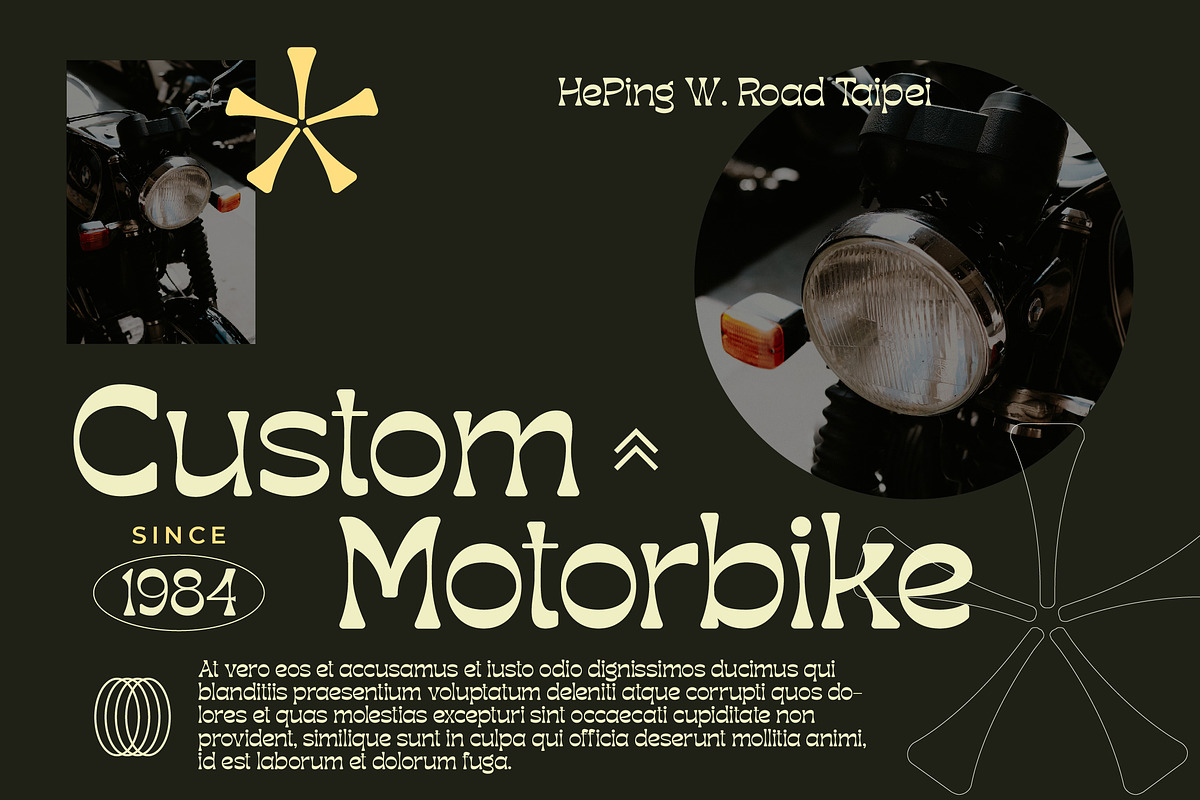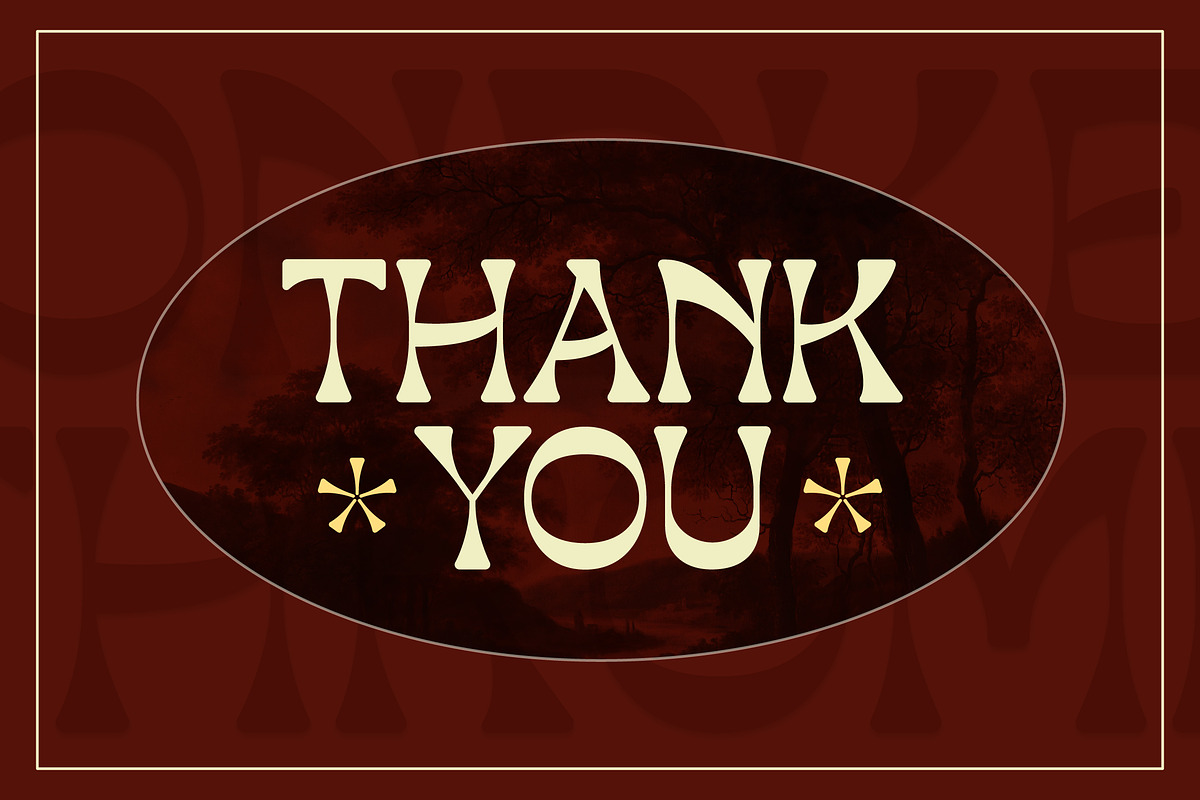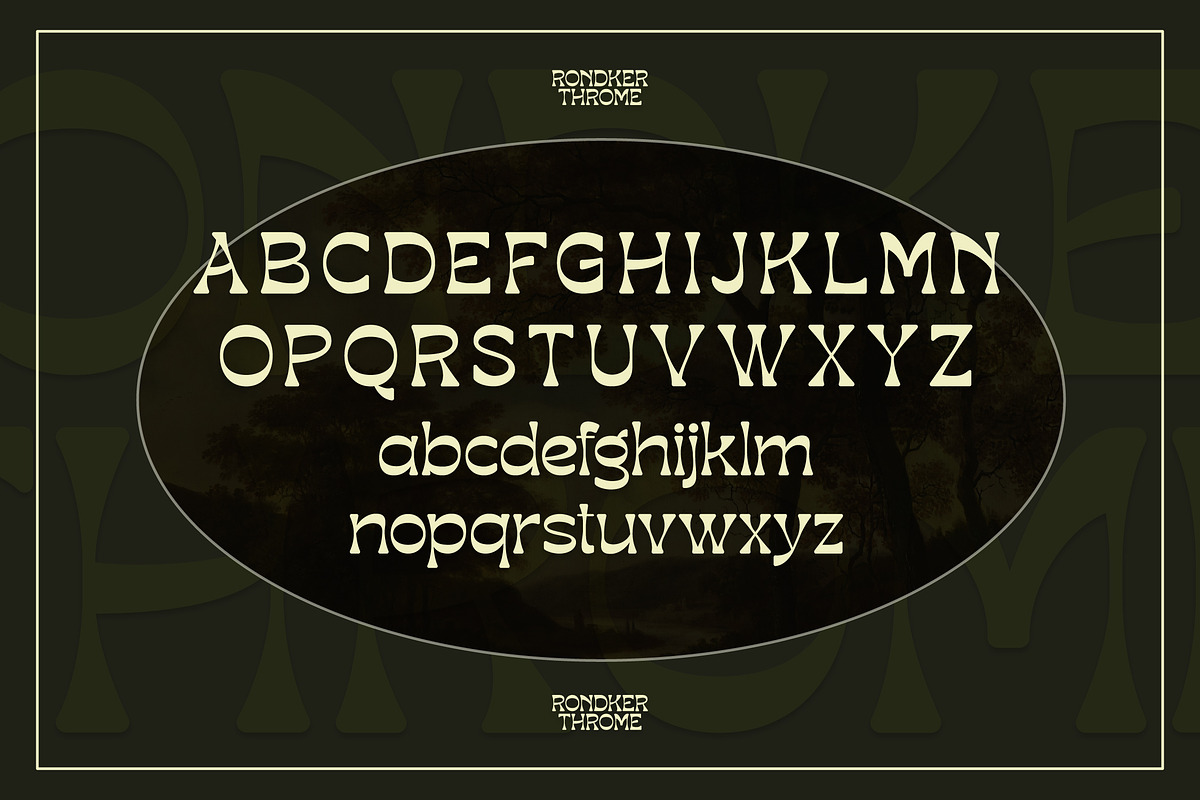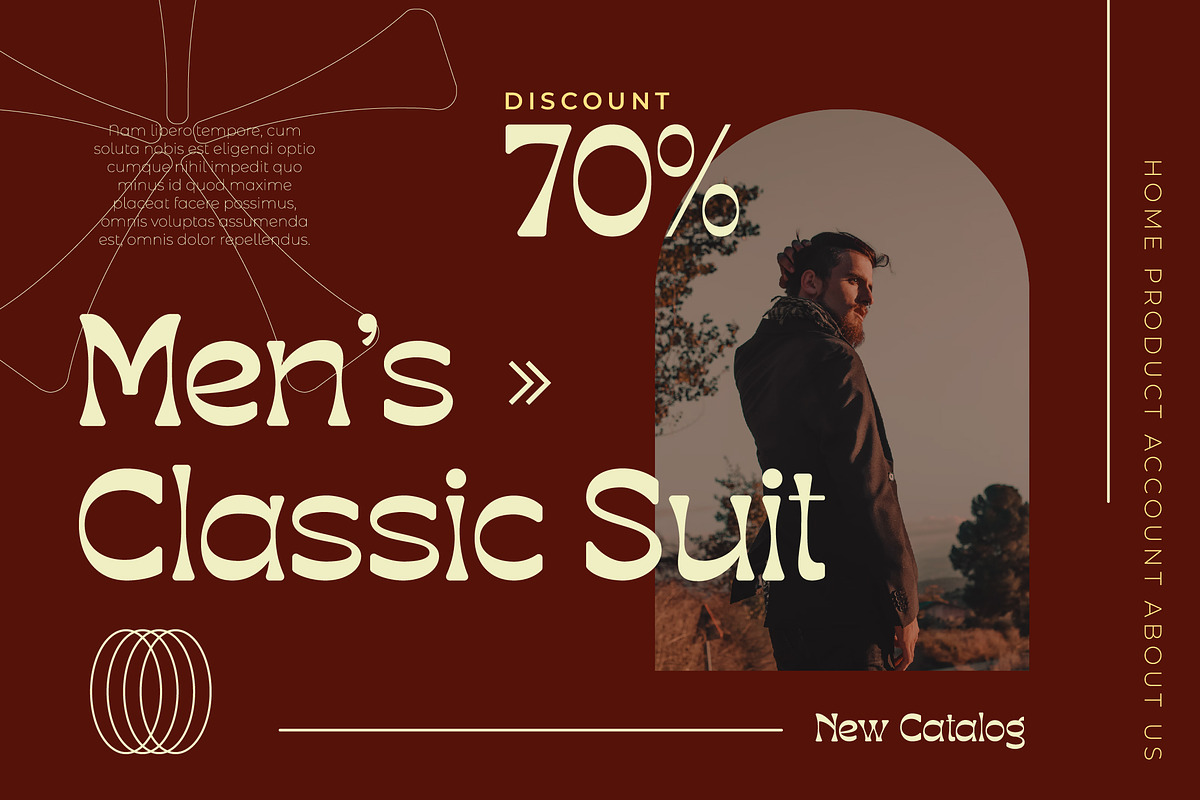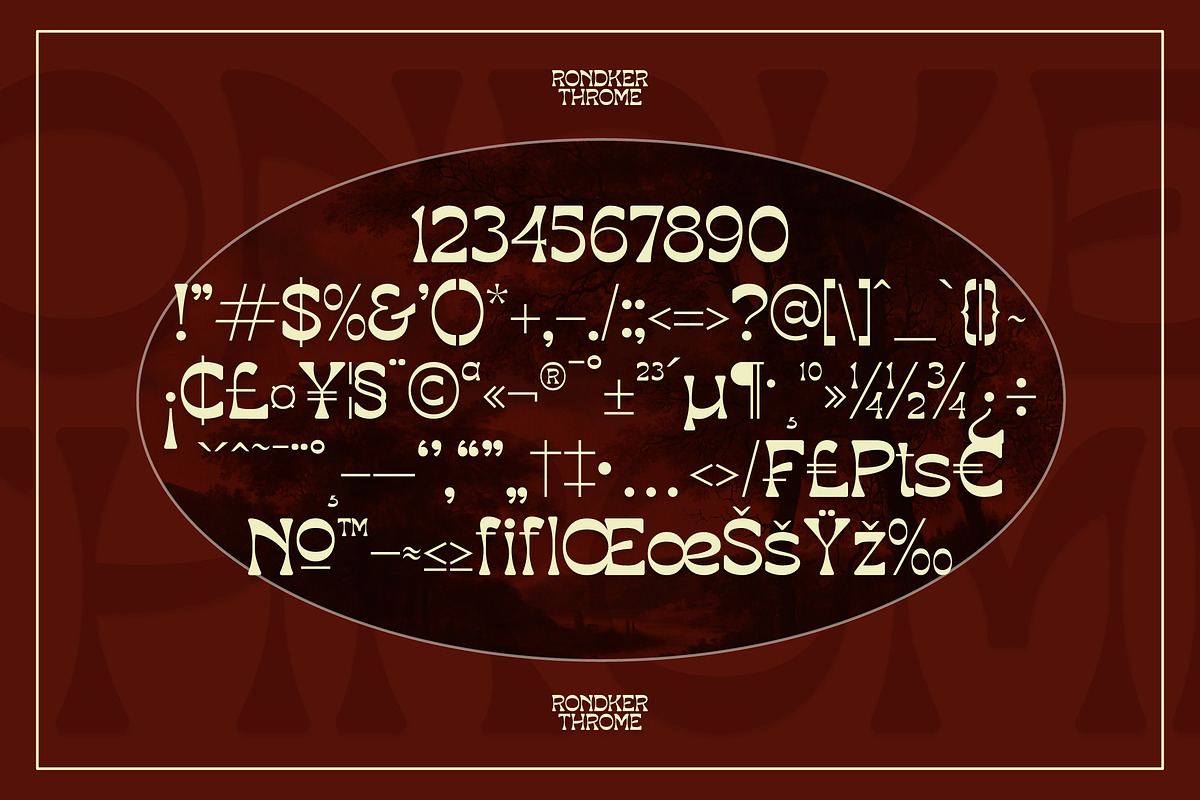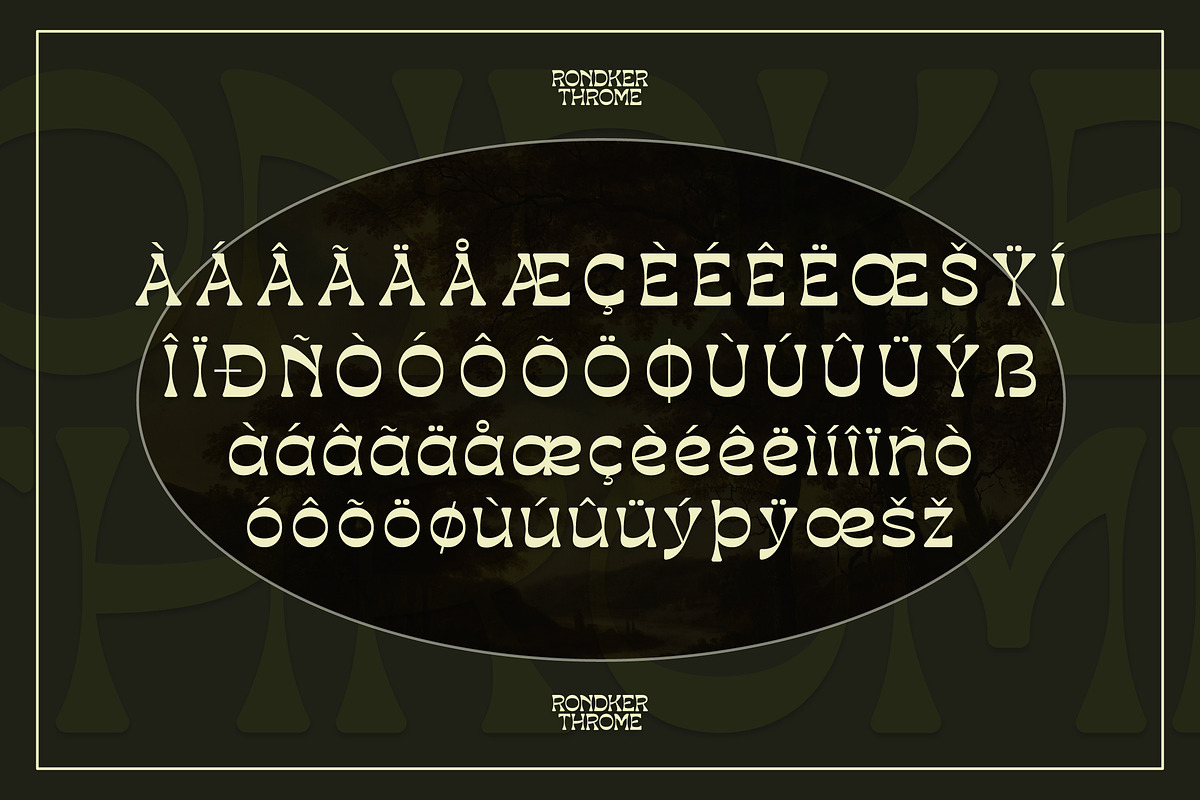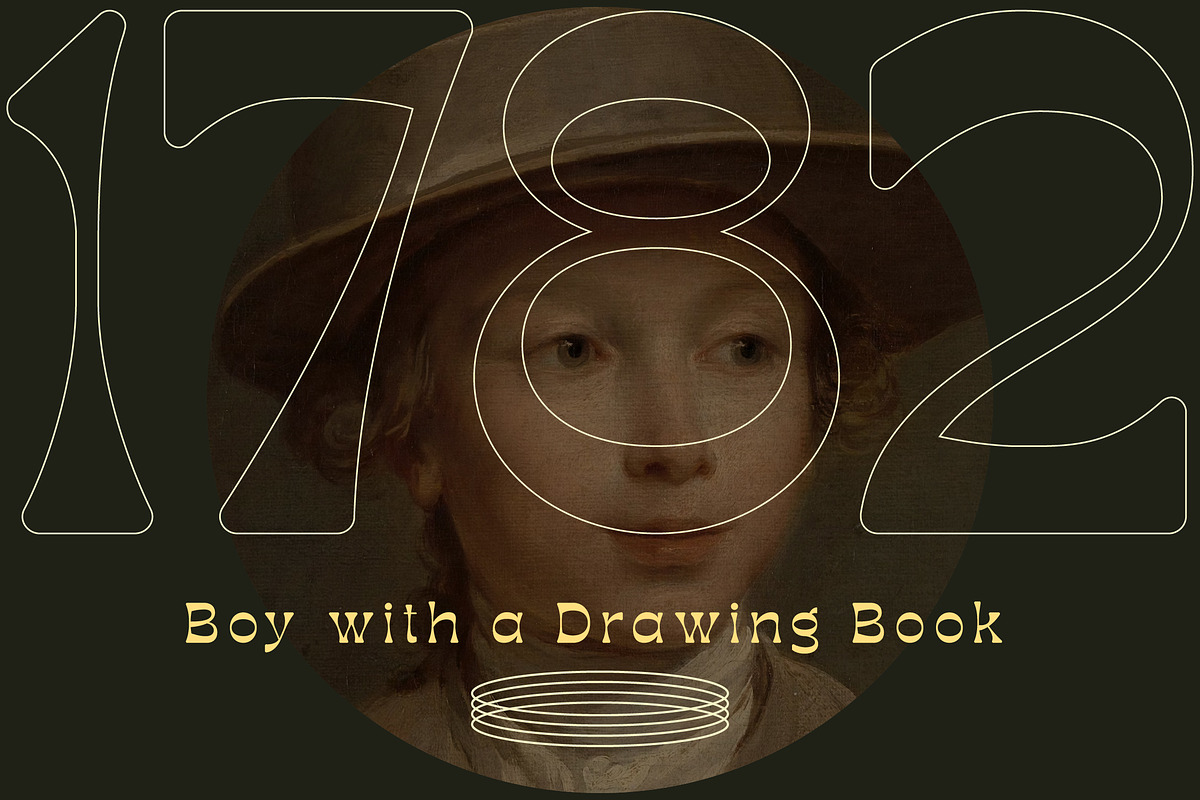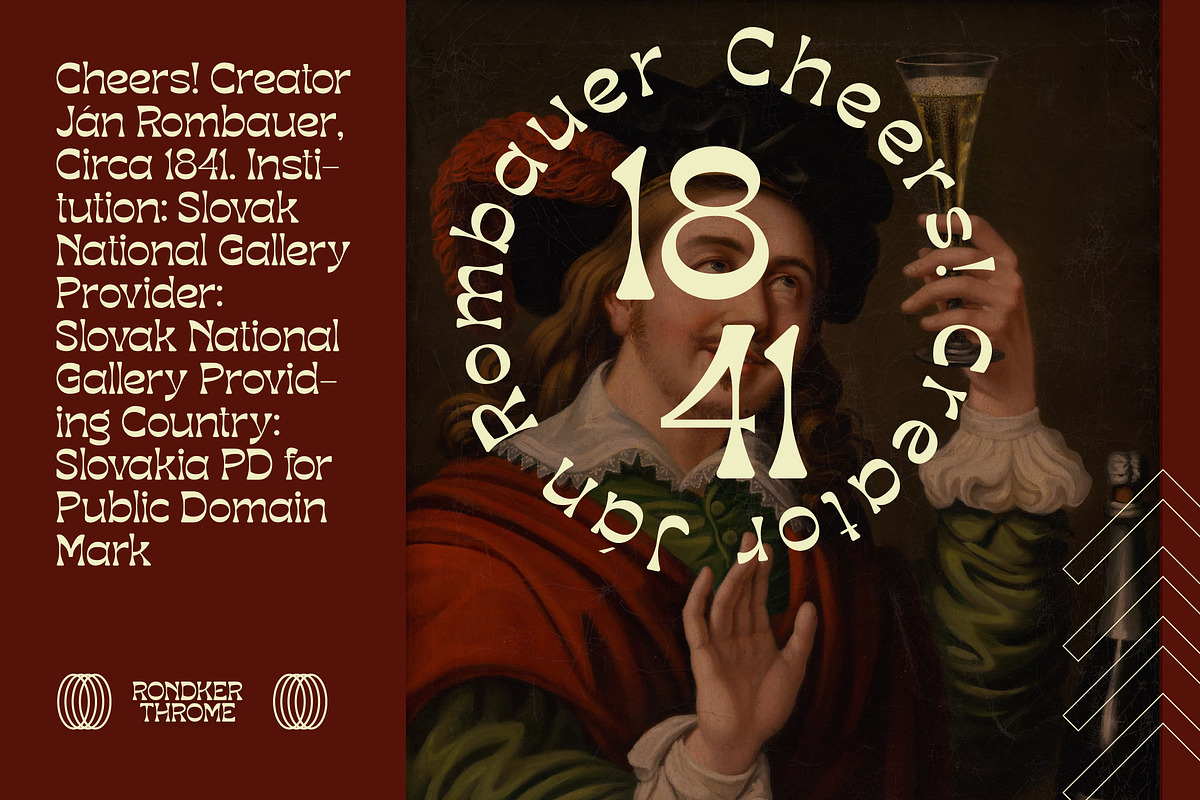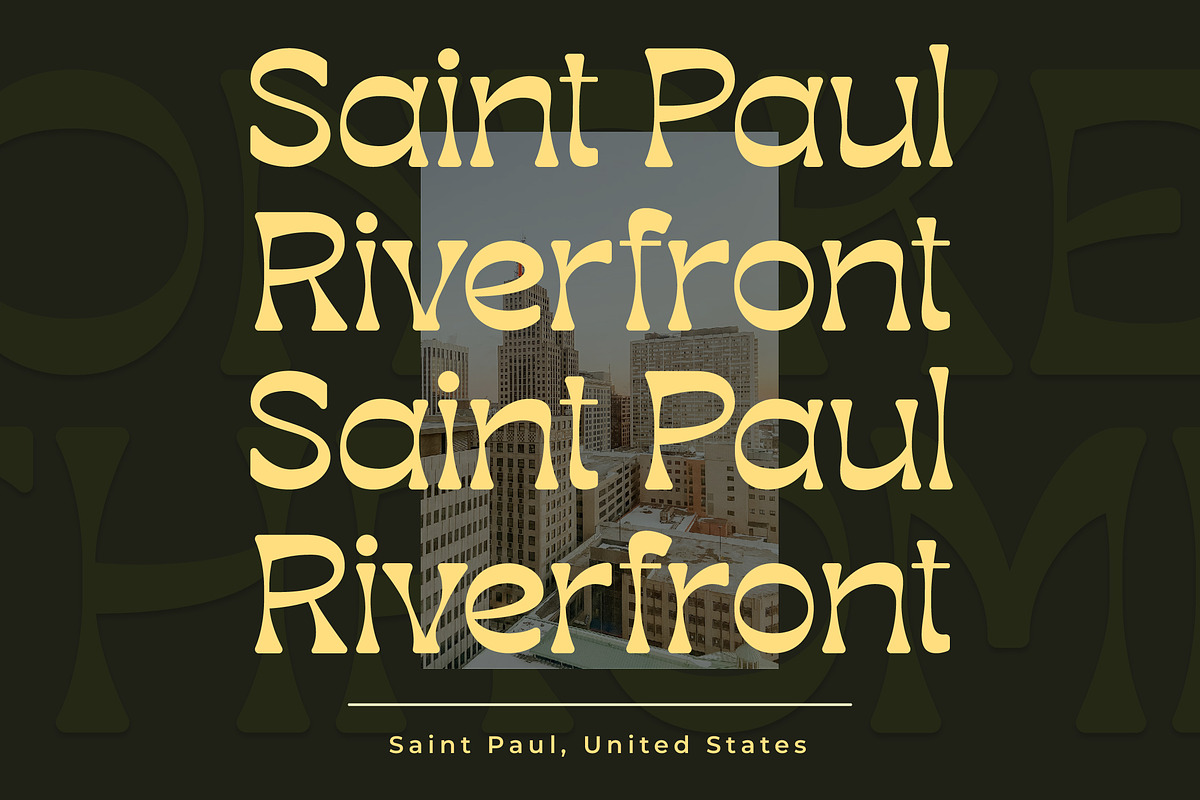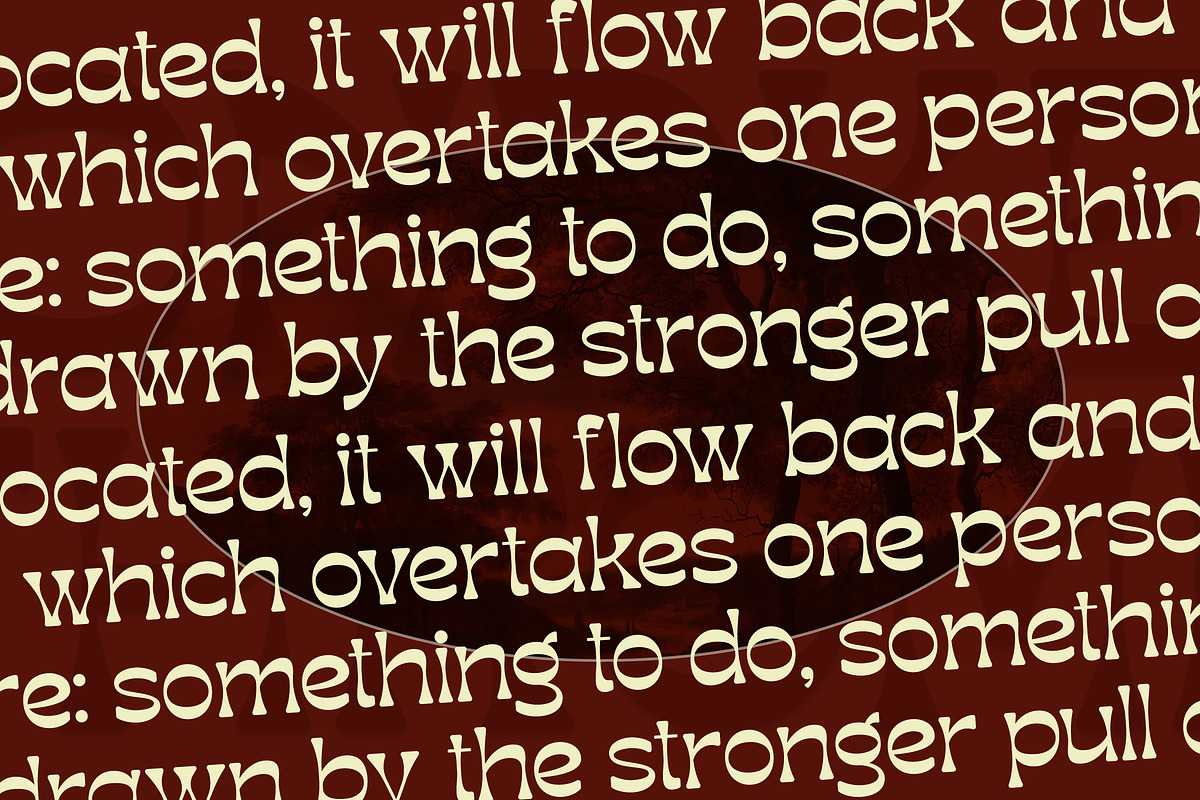
Rondker Throme Reverse Contrast Font
Proudly present RONDKER THROME Typeface , created by Storytype, A serif modern and classic typeface that has own unique style & modern look. This typeface is perfect for an elegant & luxury logo, book or movie title design, fashion brand, magazine, clothes, lettering, quotes, and so much more.